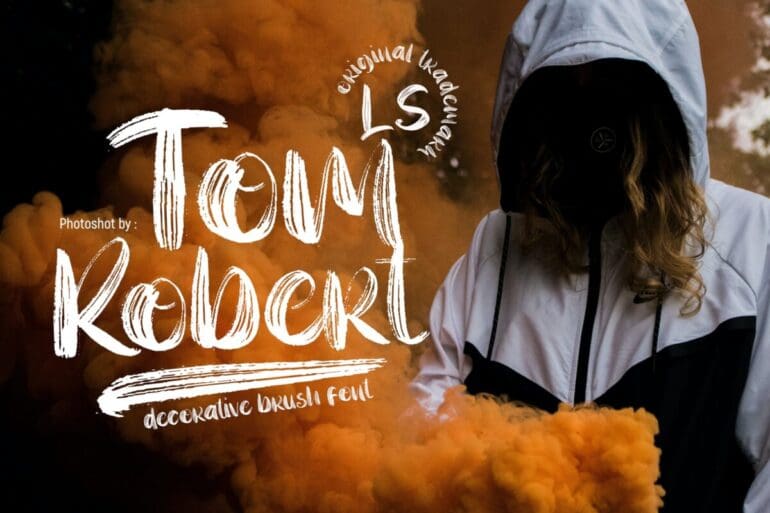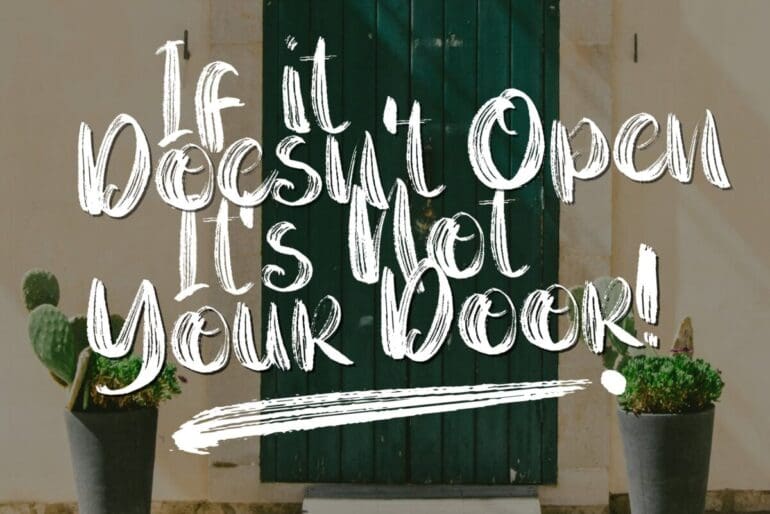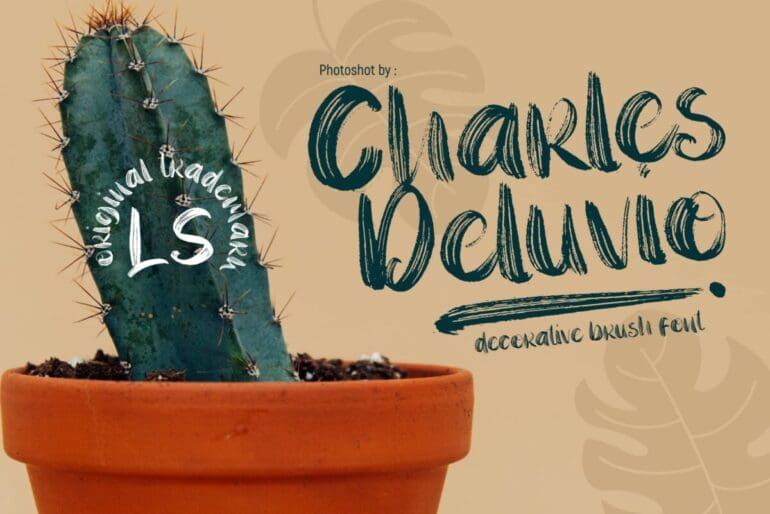
Smegh Mouth Font
Smegh mouth Font. This pair was inspired by the retro poster design that I saw on some coffee shop, It was crafted by hand especially to add a natural handmade feeling in its brand identity than I make it clean with pentool.